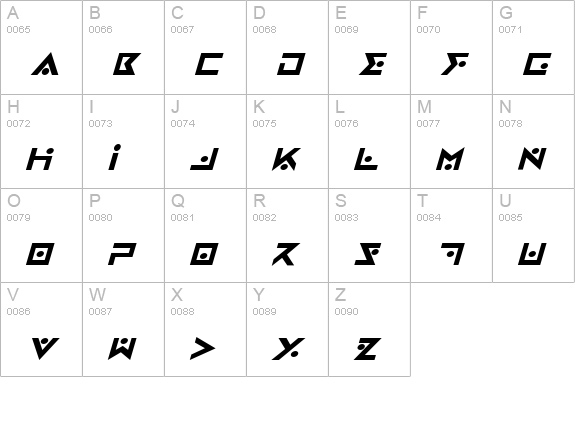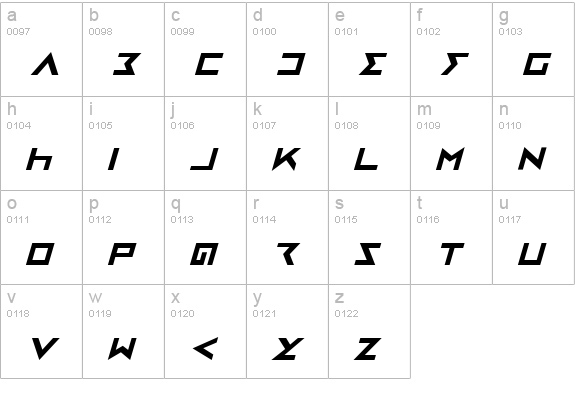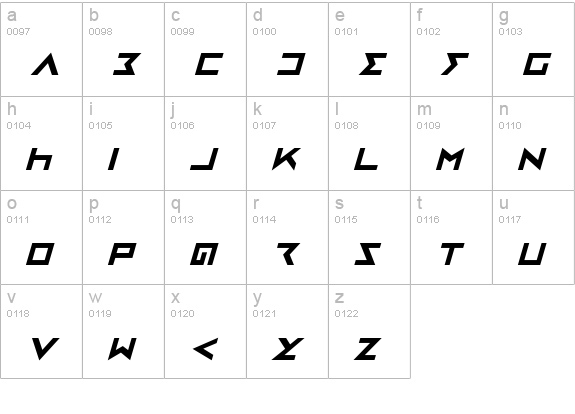
Iron Cobra Bold Italic Font Details
Iron Cobra Bold Italic is a strong, high-contrast, italic variant in the Iron typeface family \xE2\x80\x94 well suited to headlines, attention-grabbing titles, and strong calls-to-action.
Iron Cobra Bold Italic font is a striking and dynamic typeface that exudes power and confidence. Its bold weight combined with italic styling creates a sense of drama and impact, making it perfect for headlines, posters, and other display uses. The sharp angles and strong lines of this font give it a modern and edgy look that commands attention. What's even better is that Iron Cobra Bold Italic font is available for free download at FontsMarket.com. This means you can easily access this eye-catching typeface and use it in your design projects without any cost. Don't miss out on the opportunity to add a touch of boldness and flair to your designs with Iron Cobra Bold Italic font, now just a click away for free!